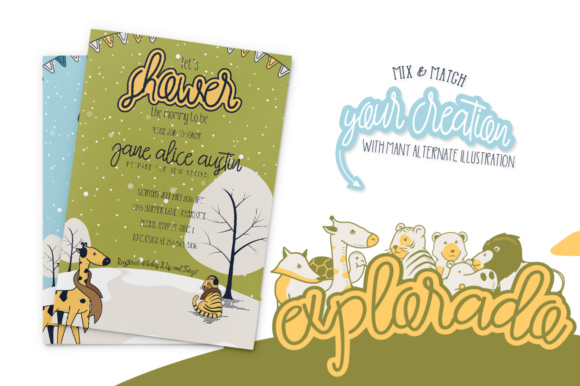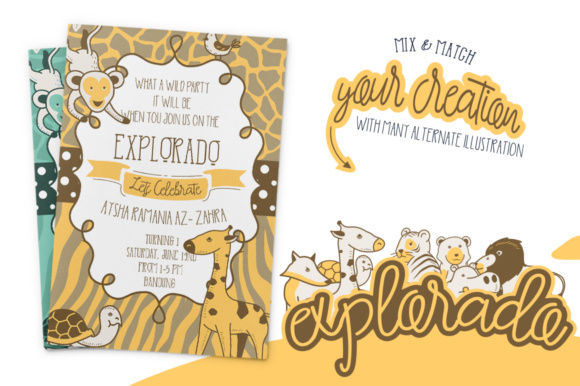
Introduction to Explorado Font
Have you ever been working on a creative project, and the perfect font just slips right out of your hands? You envision a beautiful, whimsical design, but the font just doesn’t seem to fit the bill. This is where the Explorado Font comes in – a stunning hand-lettered script that’s sure to elevate your designs and capture the hearts of your audience.
With its unique blend of elegance and playfulness, the Explorado Font is a valuable resource for designers looking to add a touch of personality to their work. Whether you’re working on a branding project, creating social media graphics, or crafting a wedding invitation, this font is sure to bring your ideas to life. And the best part? It’s available for free download, making it an accessible design resource for creatives of all levels.
But what really sets the Explorado Font apart is its versatility. Not only does it come in different styles, but it also includes bonus illustrations that can be used to create adorable and fun designs. With a transparent background and high-quality design, you can be sure that your projects will look professional and polished. So why wait? Dive into the world of Explorado Font and discover a whole new level of creative possibilities.
Key Features of Explorado Font
- High-quality, professional design for creative projects, including posters, logos, and branding materials.
- Transparent background option for seamless integration into various design elements and backgrounds.
- Designed to be scalable, with a high resolution of 300 DPI for crisp and clear display on various devices and screens.
- Unique, modern design style that sets it apart from other fonts, making it an excellent choice for designers looking for something fresh and innovative.
Honest Review: Explorado Font
As a designer, I’m always on the lookout for high-quality design resources to elevate my creative projects. The Explorado Font caught my attention with its unique and versatile style. In this review, I’ll share my honest thoughts on this font.
- High-quality design: Explorado Font is well-crafted, with clear and readable characters.
- Transparent background: This font is perfect for designers who want to create stunning visuals with transparent backgrounds.
- Limited character set: Explorado Font has a relatively small character set, which might be a limitation for designers who need a wide range of characters.
- No bold or italic variants: While the font is stylish, it would be great to have bold and italic variants to add more depth to designs.
Overall, I think Explorado Font is a great addition to any designer’s toolkit. While it has some limitations, its high-quality design and transparent background make it a valuable resource for creative projects. If you’re looking for a unique and stylish font, Explorado Font is definitely worth checking out.
The Explorado Font is perfect for designing graphics, logos, social media posts, presentations, and documents with a transparent background. It’s also great for creating high-quality designs for websites, magazines, and brochures.